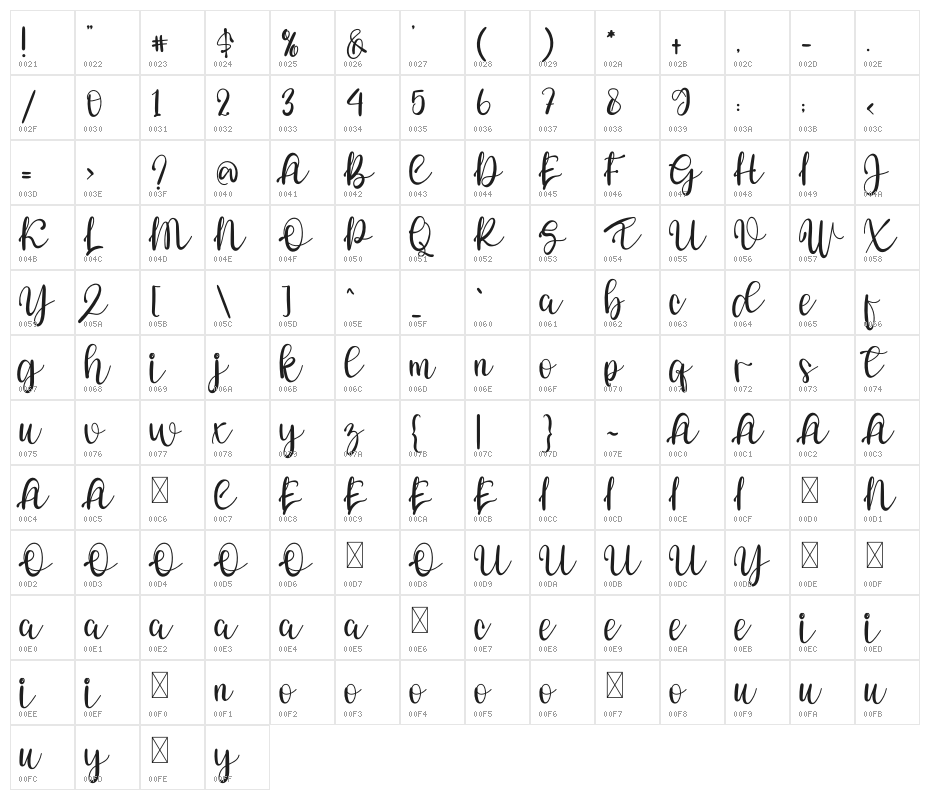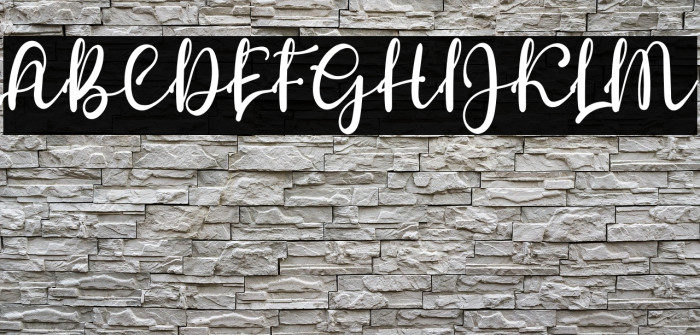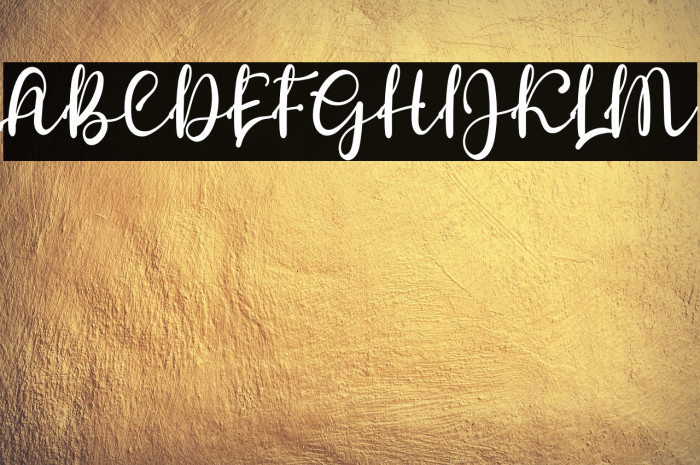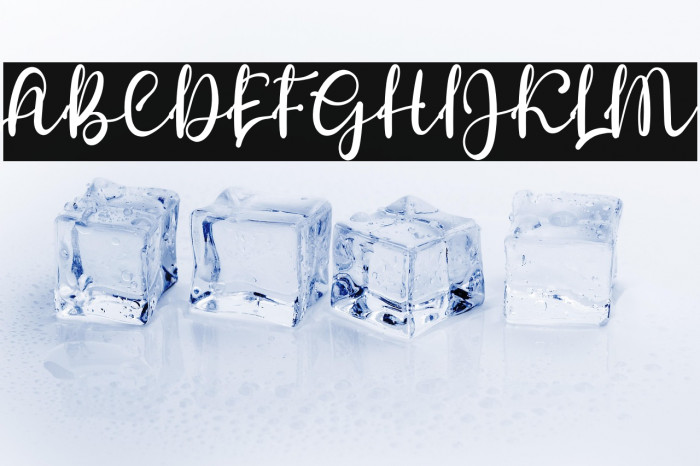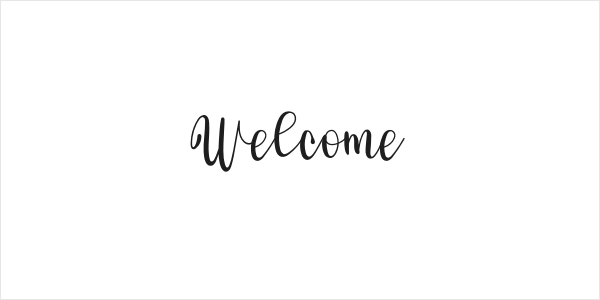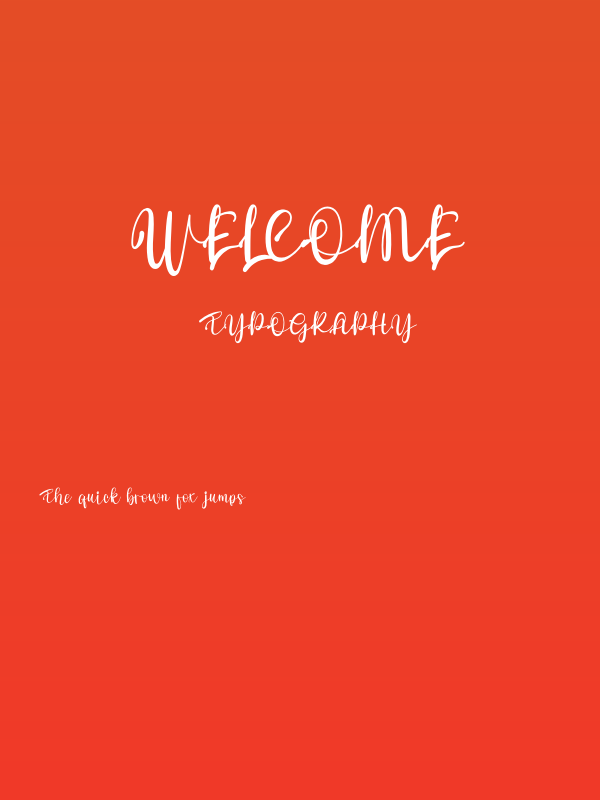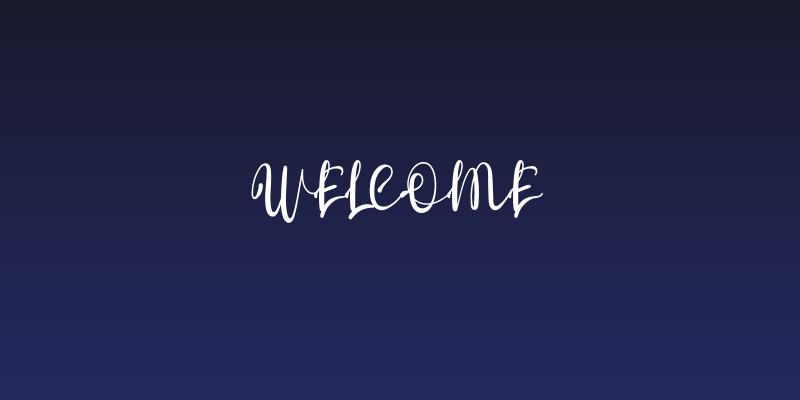
Welcome Font
Welcome Description
This font features a playful and whimsical script style with a handwritten appearance. The letters are interconnected with smooth, flowing lines, giving it a casual yet elegant look. The uppercase letters maintain a consistent height, while the lowercase letters vary slightly in size, adding to its charm. The numbers and special characters are designed to match the overall style, ensuring a cohesive look across all text. The strokes are moderately thick, providing good readability while maintaining the decorative essence of the font. This font is ideal for creative projects that require a personal touch.
| Proposed Projects | Greeting cards, invitations, personal branding, social media graphics, and creative posters. |